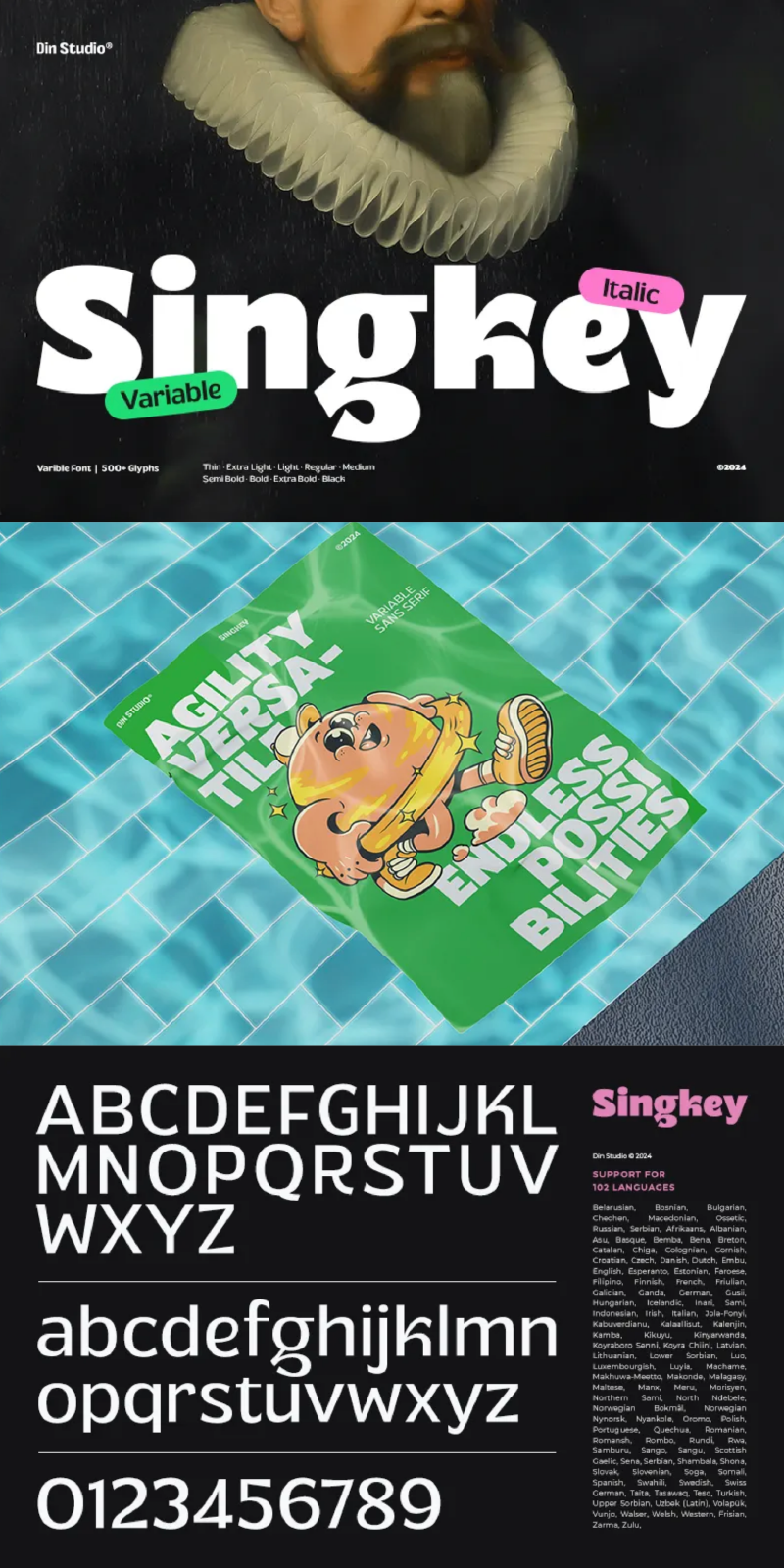
Singkey Font
About Singkey
Singkey is a versatile sans serif font family designed in a clean and modern style. Made in 9 different weights and matching italic versions, Rimland offers complete freedom and flexibility for any project. This font family delivers a contemporary and professional touch to elevate your designs.
Singkey’s different weight fonts :
- Thin (Regular/Italic)
- Extra Light (Regular/Italic)
- Light (Regular/Italic)
- Regular (Regular/Italic)
- Medium (Regular/Italic)
- Semi Bold (Regular/Italic)
- Bold (Regular/Italic)
- Extra Bold (Regular/Italic)
- Black (Regular/Italic)
Singkey fits in headlines, logos, posters, invitation, branding materials, packaging, print media, editorial layouts, and many more designs. Find out more ways to use this font by taking a look at the font preview.